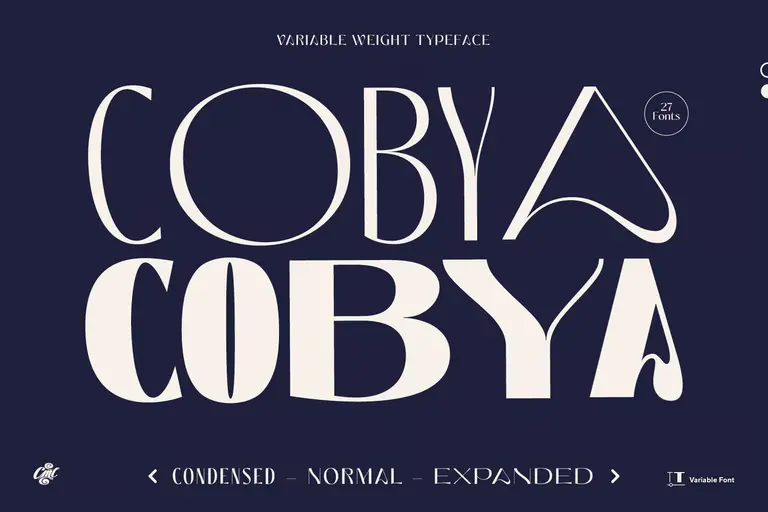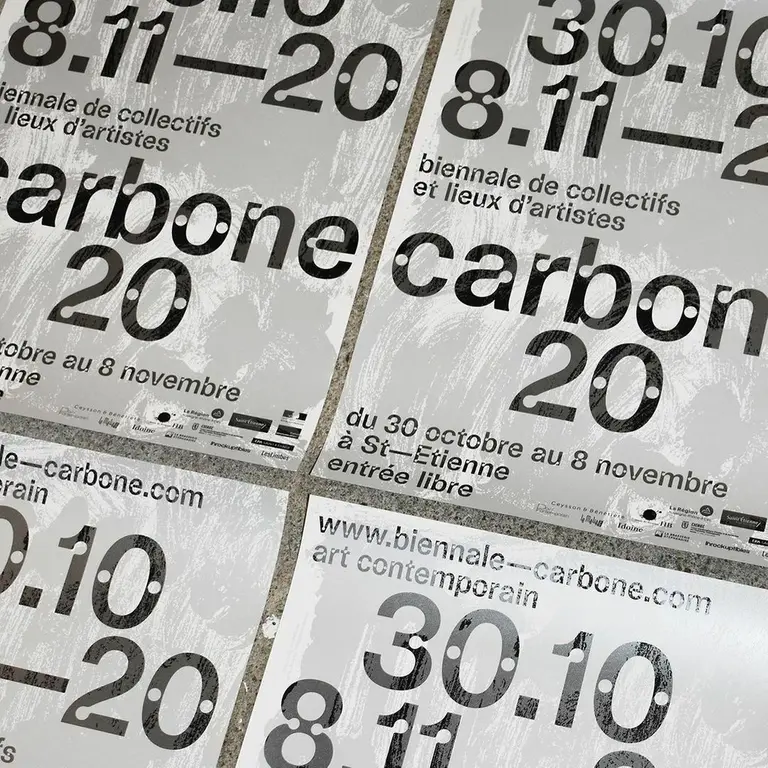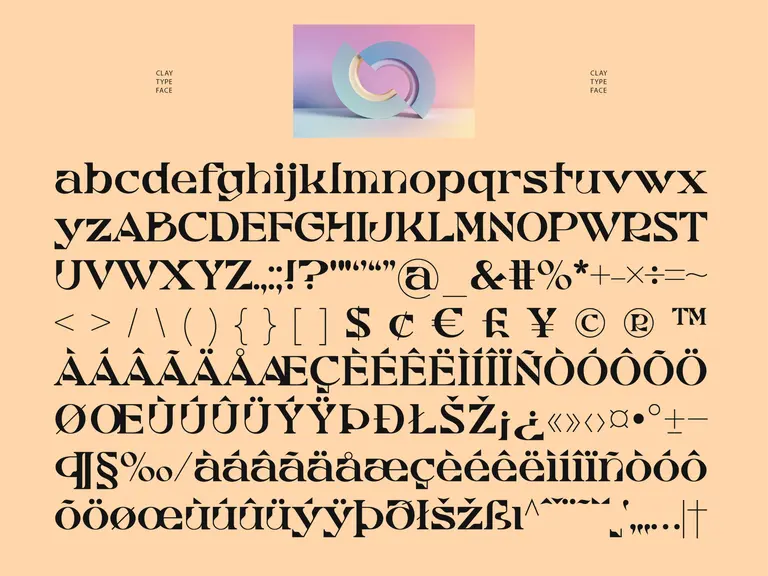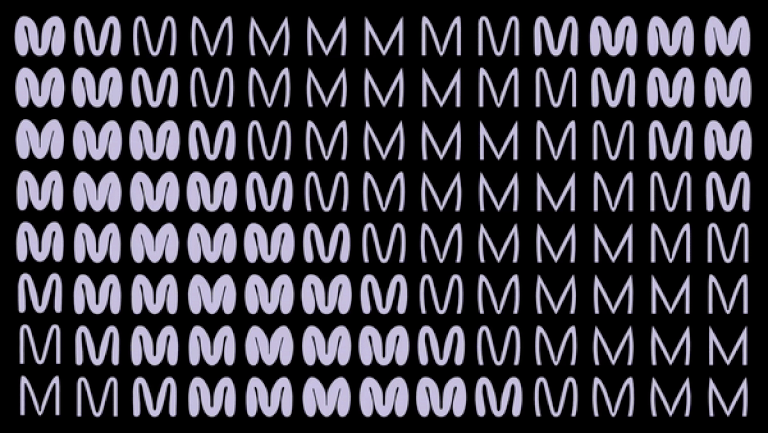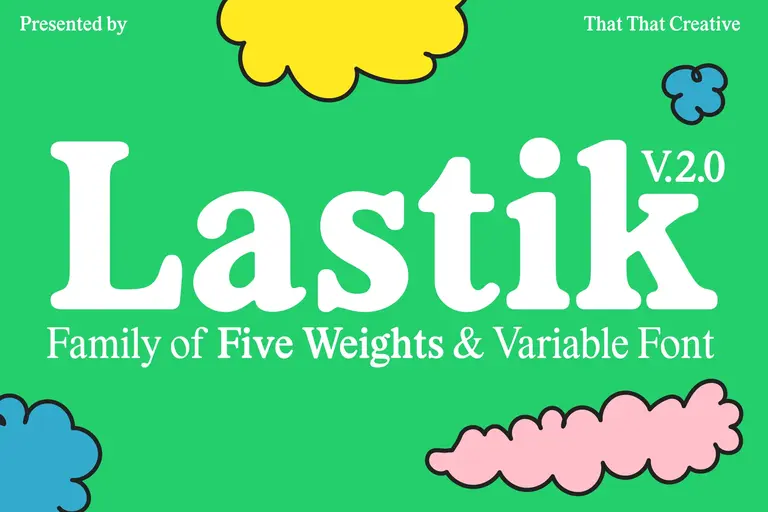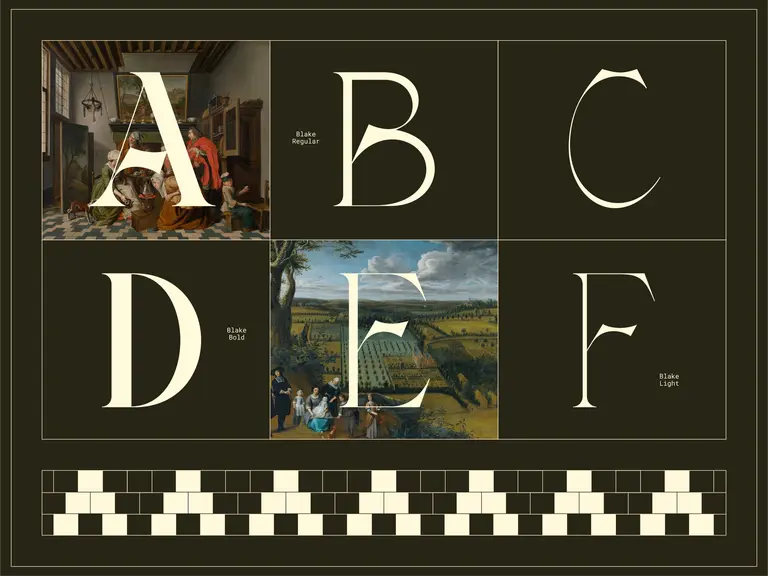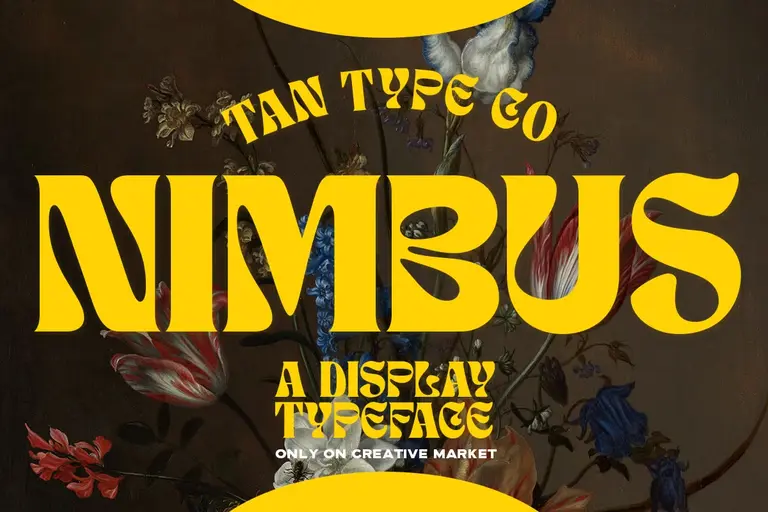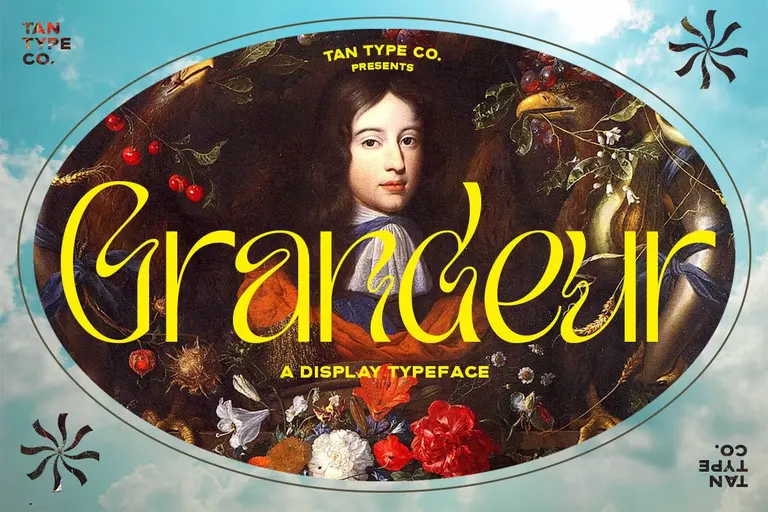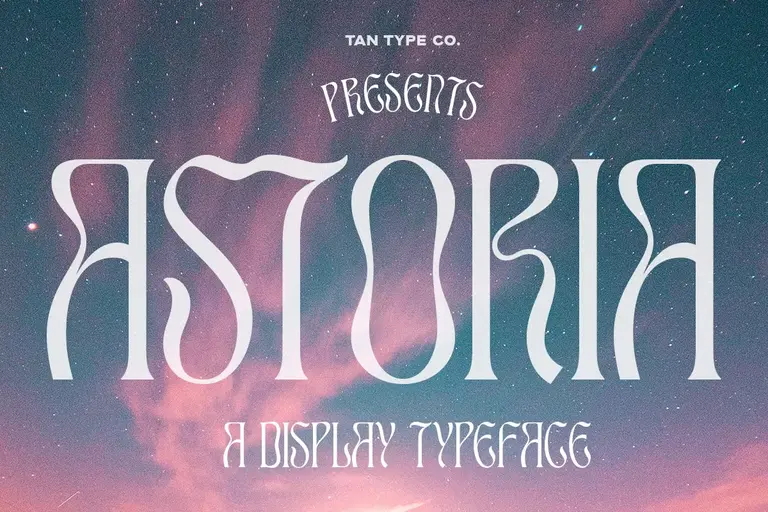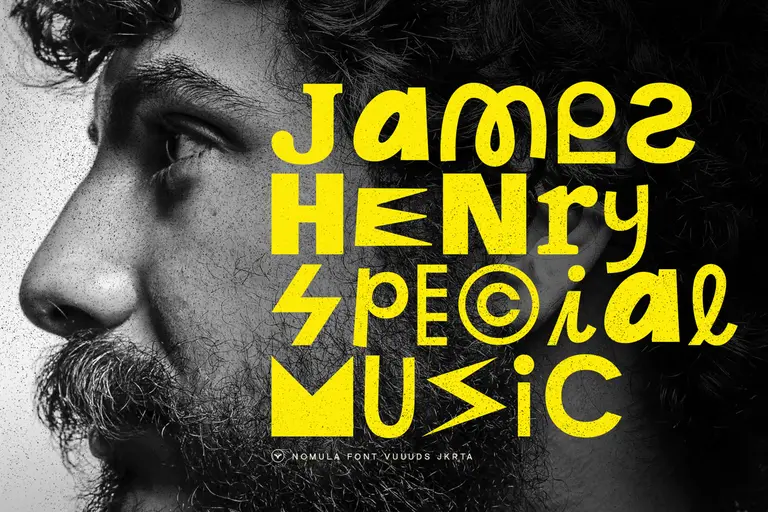
Our predicted trending fonts for 2025
As 2025 approaches, it’s the perfect time to dive into the font trends set to transform your designs in bold, new ways.
Font trends are constantly evolving to meet the demands of a more visually dynamic and engaging design landscape. Today, modern typefaces do more than just convey words—they set the mood, tell stories, and reflect unique brand personalities.
From nostalgic retro revivals to the rebellious spirit of anti-design fonts and the captivating movement of kinetic typography, these trends offer a range of styles to connect with audiences in fresh and meaningful ways. Whether you’re looking for something bold, playful, or experimental, these upcoming font trends are sure to inspire your next creative project.
Retro revival
Retro fonts are making a big comeback, and it’s easy to see why—they add a touch of nostalgia and personality that feels both fresh and familiar. These fonts are inspired by typefaces from past decades, like the groovy curves of the '70s, the bold serifs of the '80s, or the playful, experimental vibes of the '90s. They’re perfect for brands or designs that want to create a sense of warmth, fun, and authenticity.
Part of the trend is all about standing out among clean, minimalist graphic designstyles. Retro fonts bring character and uniqueness to digital and print designs, giving a nod to the past while reimagining it for today. Plus, they offer a visual way to connect with audiences emotionally, sparking memories and a sense of connection. As we look toward 2025, retro revival fonts bring a timeless, playful quality to the table that really makes them pop.
Here are some top retro fonts to try out in your own designs.
Anti design fonts
Anti-design fonts are all about breaking the rules, and they’re one of the most exciting trends we’re seeing for 2025.
These fonts throw out traditional design ‘dos and don’ts,’ embracing a lo-fi, imperfect, and sometimes chaotic look that challenges the idea of what ‘good’ design is. You’ll often see unusual shapes, unexpected letter spacing, or quirky asymmetry—all aimed at making a bold, in-your-face statement.
This humanistic trend taps into a rising desire for individuality and a break from the polished, ultra-clean aesthetics we’re so used to seeing. Anti-design fonts bring raw, unfiltered energy to digital and print spaces, making them perfect for designers who want their work to stand out and make an unapologetically bold statement.
Check out a few of our standout choices below.
Contemporary serif
During the last few years, sans serif fonts dominated the scene, but in 2025, we’re expecting a strong comeback from serif typefaces—though not in the same form as the classics like Times New Roman and Bodoni.
While these fonts have always conveyed elegance and tradition, the new wave of serif fonts is infused with fresh, contemporary elements that feel perfectly at home in today’s design world. Picture softer curves, playful details, and sleek, refined glyphs that bring a sense of timeless elegance while still feeling new and relevant.
Here’s some of our favorite contemporary typefaces that put a modern twist on classic serifs.
Variable fonts
A variable font is a single font file adjustable along multiple axes—such as weight, width, and slant—offering greater flexibility than traditional static fonts with fixed weights and styles. This versatility makes variable fonts ideal for website and app projects with a dynamic, responsive look.
Variable fonts are also incredibly adaptive, working seamlessly across devices, from tiny phone screens to large displays, so your text always looks sharp and readable. Plus, they open up new creative possibilities—like adding subtle animations or creating responsive typography that gives your design a unique, modern touch. With design leaning more toward immersive and user-centered experiences, variable fonts strike the perfect balance between efficiency and creativity, making them one of the top trends for 2025.
Take a look at some of our favorite variable fonts below.
Kinetic typography
Kinetic typography is all about movement—it brings text to life in a way that captures attention and adds a dynamic, storytelling element to design. Unlike static fonts, kinetic typography uses motion to emphasize words or create an experience, making it ideal for engaging viewers on websites, apps, and social media.
This experimental trend taps into our love for video and animation. It’s perfect for grabbing attention in fast-scrolling feeds or highlighting key messages in an interactive, and emotional way. As we head into 2025, kinetic typography stands out as a playful, memorable design trend that’s surely here to stay.